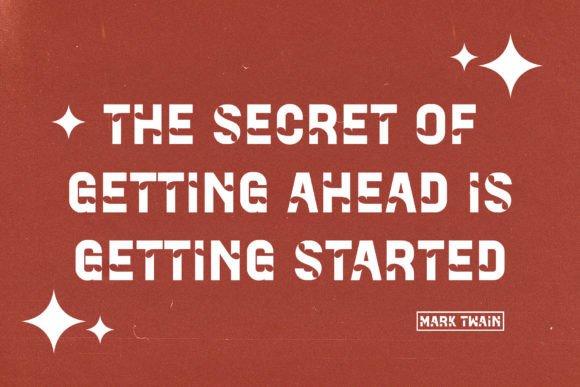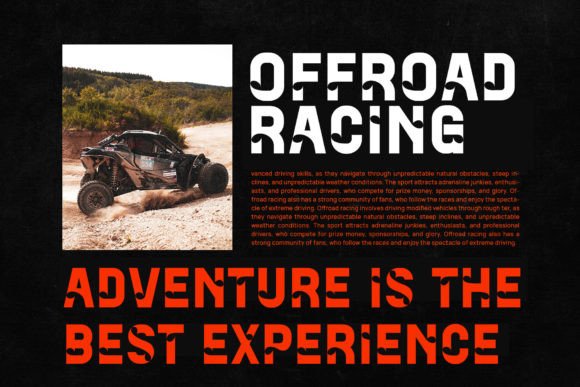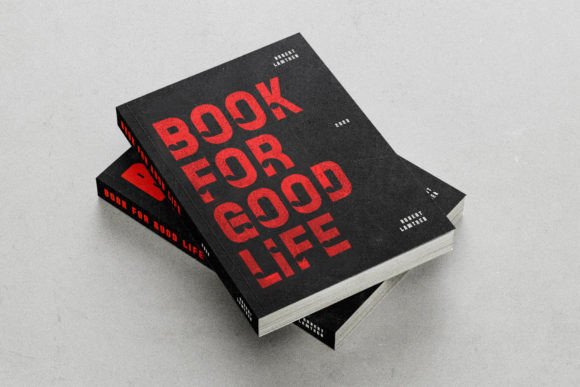
Introduction to Shoes Heros Font
Have you ever found yourself stuck in a creative rut, desperately searching for the perfect design element to elevate your project? That’s exactly what happened to many designers when they discovered the Shoes Heros Font. This enchanting typeface has been a game-changer for creative professionals, offering a symmetrical and balanced rhythm that perfectly captures the essence of any design.
The beauty of Shoes Heros Font lies in its unique blend of inspiration from various sources, resulting in precise proportions, subtle contours, and delicate contrasts. This harmonious balance gives the font an irresistible charm, making it a valuable resource for designers working on brochures, videos, advertising, branding, logos, and more. Whether you’re a seasoned pro or a design student, Shoes Heros Font is a must-have addition to your design arsenal, offering a free download that’s sure to become a trusted companion for all your creative projects.
Key Features of Shoes Heros Font
- High-quality font with a transparent background, ideal for creative projects that require a clean and modern look.
- Includes a wide range of characters, including uppercase and lowercase letters, numbers, and punctuation marks.
- Designed to be highly legible, even at small font sizes, making it perfect for use in various creative projects.
- Available in a single size (300 DPI) and resolution, ensuring crisp and clear display on various devices and screens.
- Unique characteristics include a bold and stylish design, making it perfect for use in titles, headings, and other prominent text elements.
Honest Review: Shoes Heros Font
I recently had the chance to work with the Shoes Heros Font, and I must say it’s been a fun addition to my design resource library. The font is a free download, which is always a plus for me, and it’s perfect for any creative project that needs a unique touch.
- ✨ Great for titles and headings – the font really shines when used in bold, eye-catching ways.
- ✨ Highly customizable – I was able to adjust the size, color, and even the transparency of the background to fit my design needs.
- ✨ Unique and creative – the Shoes Heros Font is a great way to add some personality to your design, and it’s perfect for projects that need a bit of flair.
However, there are a few limitations to consider: ⚠️ The font is not ideal for body text, as it can be a bit difficult to read in smaller sizes. Additionally, the font is not as versatile as some other design resources I’ve worked with, and it may not be suitable for all types of creative projects.
Overall, I’m really impressed with the Shoes Heros Font. It’s a high quality design resource that’s perfect for adding a bit of creativity and flair to your next project. With a transparent background and free download, it’s a great addition to any designer’s library.
Tips for Getting the Most Out of Shoes Heros Font
Use the Shoes Heros Font in combination with a transparent background to create a high-quality design resource. Experiment with different font sizes and styles to find the perfect look for your creative project. You can also use the font in conjunction with other design elements, such as images and shapes, to create a unique and eye-catching design.
Common Use Cases for Shoes Heros Font
The Shoes Heros Font is a versatile design resource that can be used in a variety of creative projects, including business cards, brochures, and social media graphics. The font’s high-quality design and transparent background make it an ideal choice for designers who want to create professional-looking designs quickly and easily.